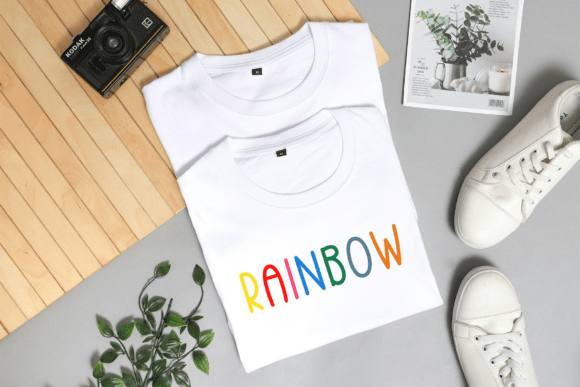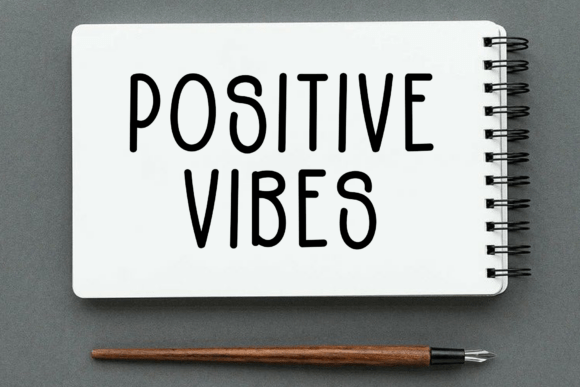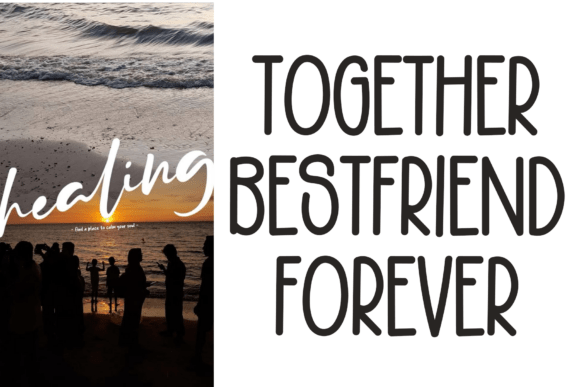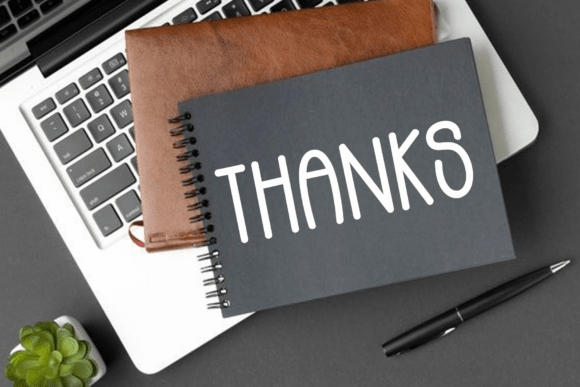
Introduction to Cottagecore Font Font
Fonts play a crucial role in design, and the Cottagecore Font font is a typeface that brings both character and versatility to any project. Whether you’re working on a branding project, a website, or a print design, the Cottagecore Font font offers a unique style that can elevate your work.
Cottagecore is a trendy handwritten font with a contemporary atmosphere and impeccable form, inspired by timeless classic calligraphy.
It will add elegance and class to any of your design projects .
Key Features of Cottagecore Font Font
Why Choose Cottagecore Font Font?
The Cottagecore Font font is more than just a typeface – it’s a design tool that helps you communicate your message with style and clarity. Its unique character set and versatile design make it suitable for a wide range of applications, from elegant invitations to bold headlines.
With its carefully crafted letterforms and balanced proportions, the Cottagecore Font font ensures readability and visual appeal across all mediums.
What makes Cottagecore Font font special?
The Cottagecore Font font stands out with its unique design, exceptional readability, and versatility across various design applications.